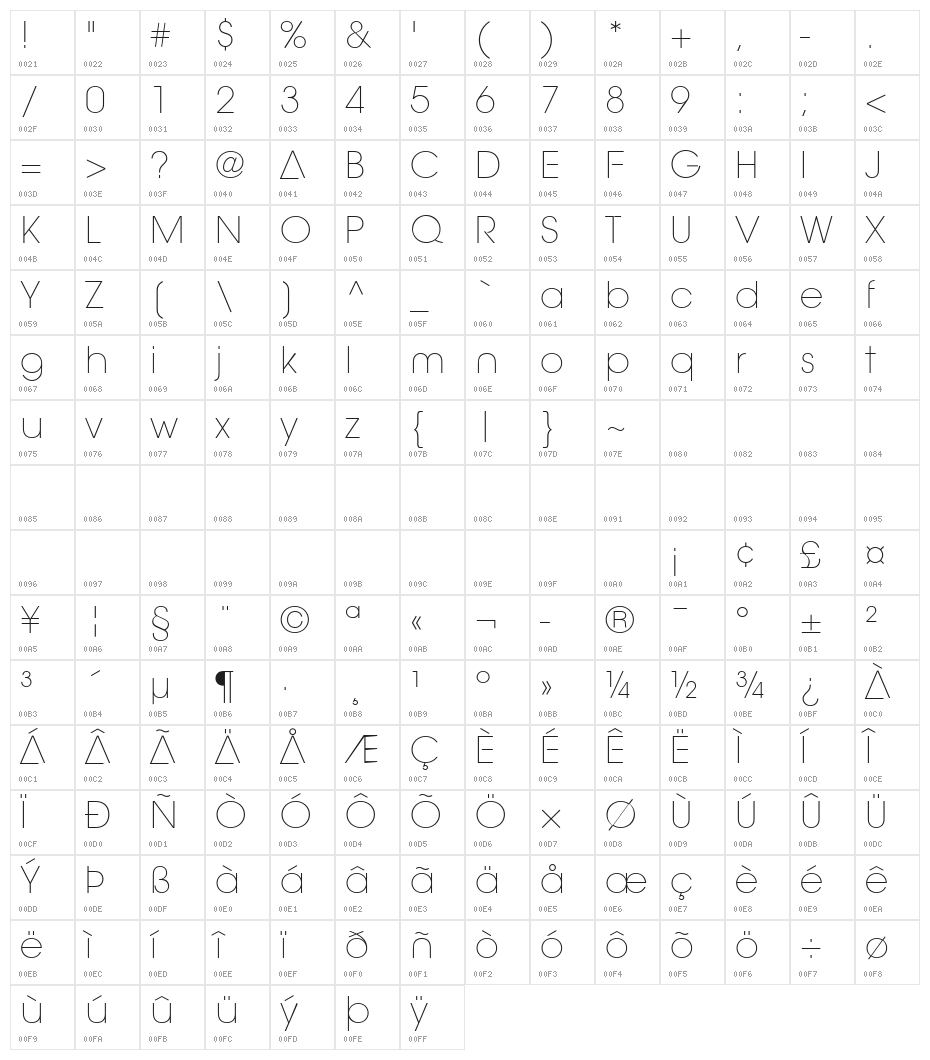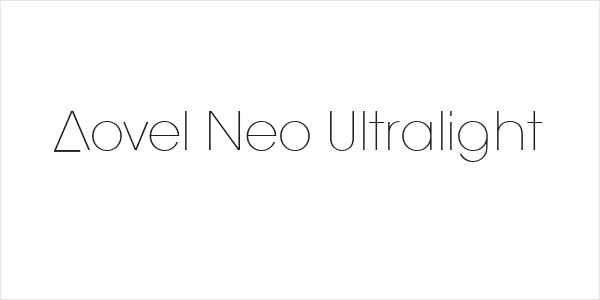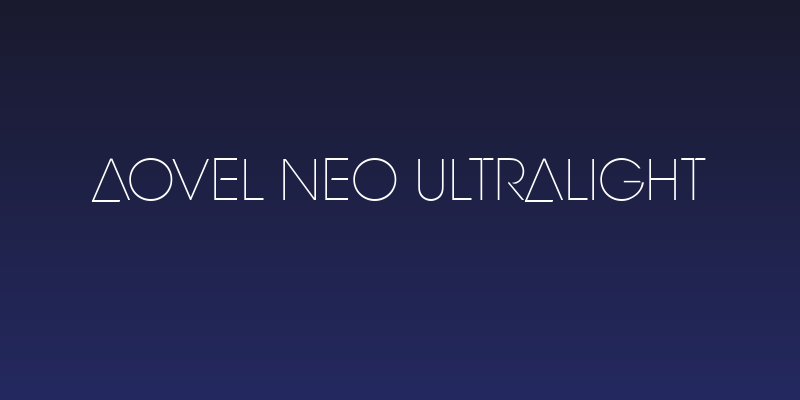
Aovel Neo Ultralight Font
Aovel Neo Ultralight Description
This font features a sleek, ultra-lightweight design with clean, geometric lines. The characters are evenly spaced, providing a modern and minimalist aesthetic. The uppercase letters exhibit a perfect balance of curves and straight lines, while the lowercase letters maintain a consistent height and form. The numerals are clear and easy to read, complementing the overall style. Special characters are designed with the same attention to detail, ensuring uniformity across the set. This font is ideal for projects that require a contemporary and sophisticated look.
| Proposed Projects | Ideal for branding, editorial design, digital interfaces, and minimalist posters. |